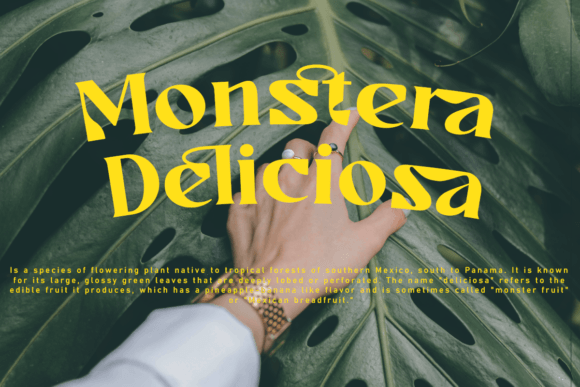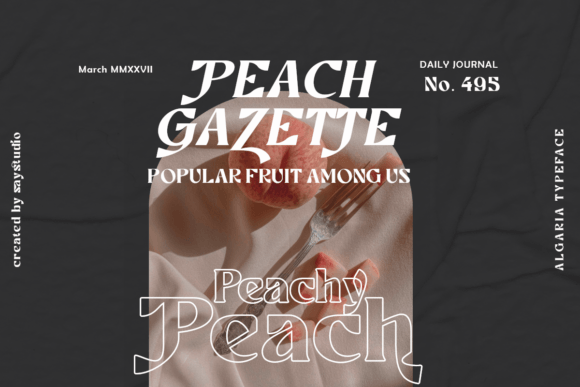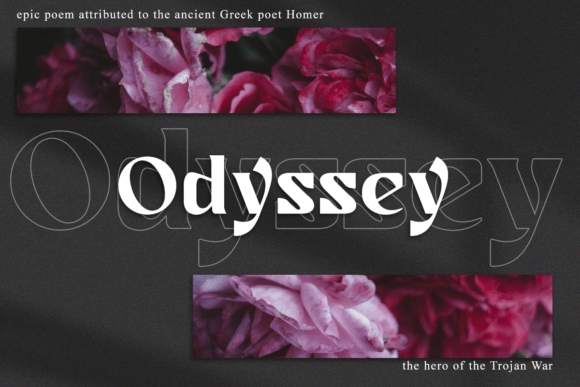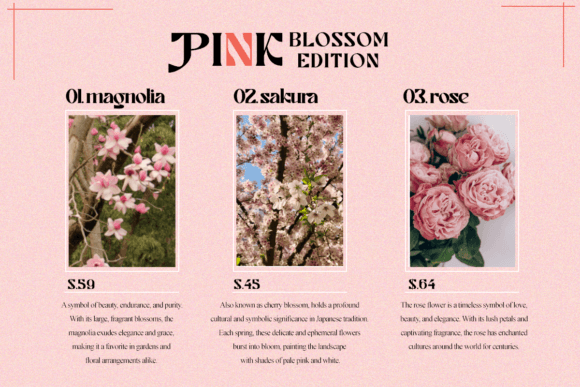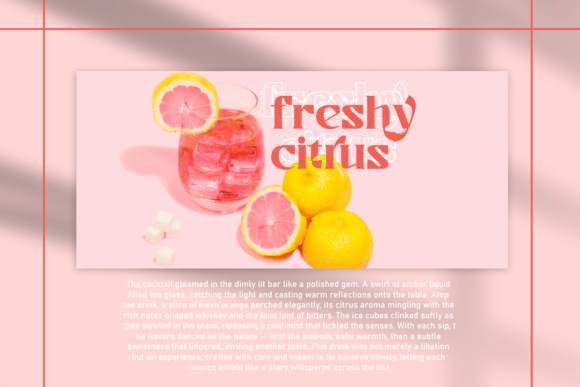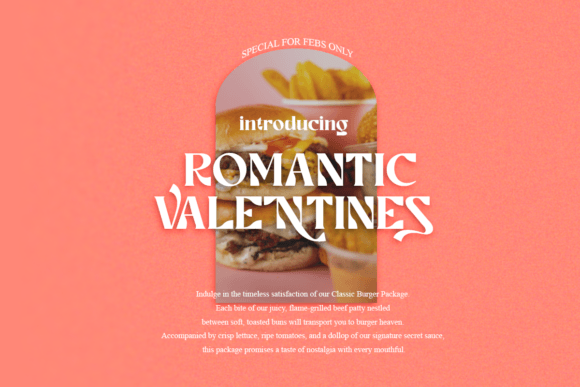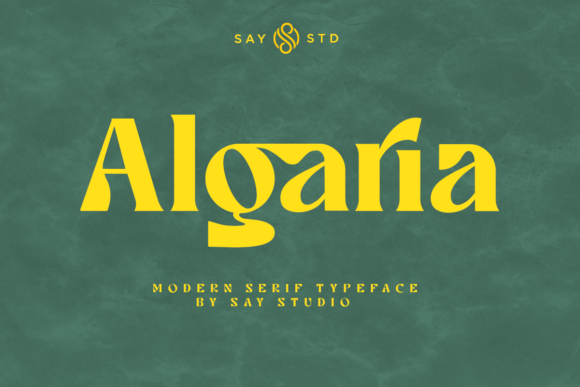
Introducing Algaria Font: The Epitome of Modern Bold Serif Elegance
In the realm of typography, a font can make or break the visual identity of a project. For designers and crafters seeking to make a lasting impression, Algaria Font emerges as a game-changer. This modern bold serif display font masterfully combines strength and elegance, offering a unique blend that elevates any design to new heights.
The Strength of Algaria: Unyielding yet Elegant
Algaria’s design is characterized by its striking, well-defined serifs and strong lines. These features not only contribute to its bold appearance but also infuse it with an air of sophistication. The serifs, meticulously crafted, add a touch of refinement, making Algaria stand out in the crowded world of display fonts.
Its boldness is not just about making a statement; it’s about conveying authority and prestige. Algaria’s robust design ensures that your message is not only seen but also felt. Whether you’re working on impactful headlines, branding projects, or editorial designs, Algaria provides the perfect blend of power and elegance.
Versatility at Its Core
One of the key advantages of Algaria Font is its versatility. While it’s specifically designed as a display font, its adaptability allows it to be used across various platforms and design projects. From magazine headlines to website banners, and from logos to billboards, Algaria proves to be an invaluable asset for designers.
Moreover, Algaria’s ability to convey a sense of sophistication and authority makes it particularly suitable for projects that require a professional edge. Legal firms, luxury brands, and high-end editorial content can all benefit from Algaria’s distinctive style, adding a layer of prestige to their visual identity.
Why Choose Algaria?
Choosing a font for your project can be overwhelming, given the myriad of options available. However, Algaria stands out for several reasons:
• Unique Combination of Strength and Elegance: Algaria offers a rare blend of boldness and refinement, making it perfect for projects that demand attention and exude luxury.
• High Versatility: Its adaptability across different mediums and design projects makes it a valuable addition to any designer’s toolkit.
• Authority and Sophistication: Algaria effortlessly conveys a sense of prestige, enhancing the visual identity of any project.
Tips for Using Algaria Effectively
To truly harness the power of Algaria Font, consider the following tips:
• Pair with Simplicity: Algaria’s boldness can be overwhelming. Pair it with simpler fonts in your design to create a balanced look.
• Consider Size and Scale: Algaria’s impact increases with size. Use it in headlines or titles to maximize its effect.
• Experiment with Colors: While Algaria looks stunning in classic black and white, don’t be afraid to experiment with colors that complement your brand’s palette.
Algaria Font is more than just a typeface; it’s a statement. It’s a declaration of style, authority, and sophistication. For designers and crafters looking to leave a lasting impression, Algaria offers the perfect combination of strength and elegance. Its versatility, coupled with its unique aesthetic, makes it an indispensable tool in the world of design.
Whether you’re aiming to create impactful headlines, elevate your brand’s presence, or enhance your editorial designs, Algaria Font is poised to become your go-to choice. Embrace the power of Algaria and witness how a simple font can transform your project’s visual identity, making it not just seen, but truly unforgettable.